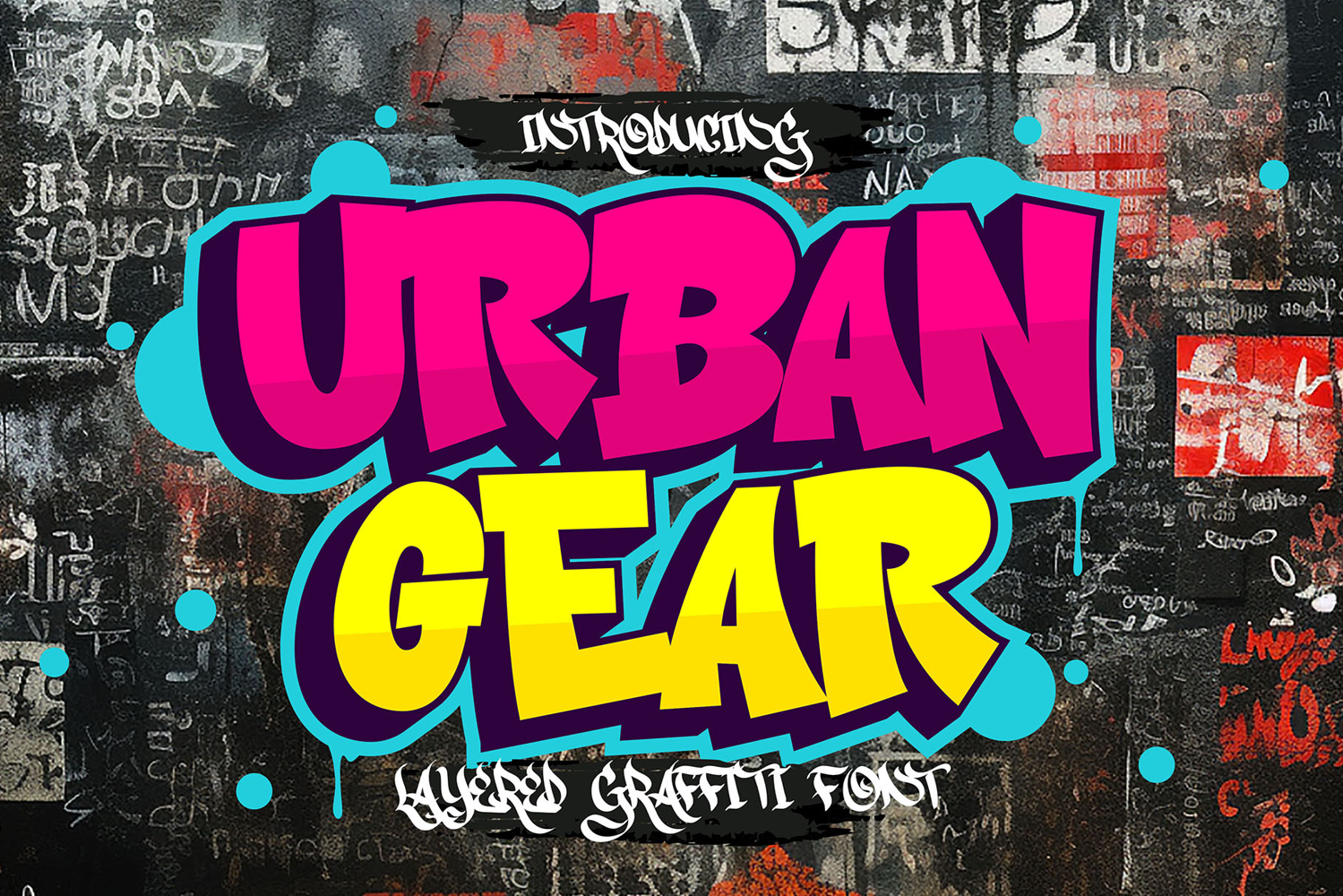
Urban Gear - Layered Graffiti Font
Urban Gear is a bold, eye-catching layered graffiti font that brings the raw energy of street art to your designs. This font delivers a high-impact visual experience, perfect for projects requiring a rebellious, urban aesthetic.
🌆 Street-Inspired Design: Urban Gear's rugged, street-art style makes it ideal for posters, murals, album covers, and more, bringing an authentic graffiti vibe to any project.
🔗 Layered for Versatility: Urban Gear's layered design allows for creative flexibility, letting you experiment with different combinations to achieve unique effects and add depth to your artwork.
🎨 Bold Expression: With thick, dynamic strokes and gritty textures, this font ensures that your message is both loud and stylish. It’s perfect for capturing the essence of urban culture in a fresh and modern way.
Make your designs stand out with Urban Gear, a font that blends street attitude with design versatility, offering endless possibilities for creative expression.